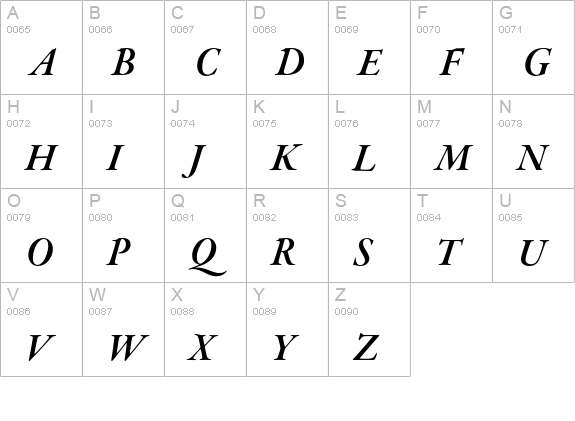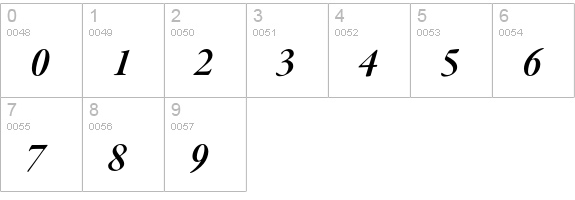
Garamond Premier Pro Semibold Italic Subhead Font Details
Garamond Premier Pro Semibold Italic Subhead is a sub-bold, structured, italic variant in the Garamond typeface family \xE2\x80\x94 well suited to sub-headlines and emphasised passages.
Garamond Premier Pro Semibold Italic Subhead font is a stylish and sophisticated typeface that exudes elegance and professionalism. With its bold yet graceful design, this font is perfect for creating eye-catching subheadings that command attention. The subtle curves and refined details of Garamond Premier Pro Semibold Italic Subhead add a touch of sophistication to any design project. What's even better is that this exquisite font is available for free download at FontsMarket.com. Now you can elevate your designs with this premium typeface without having to spend a dime. Don't miss out on the opportunity to enhance your creative projects with the timeless beauty of Garamond Premier Pro Semibold Italic Subhead font. Download it today and take your designs to the next level!